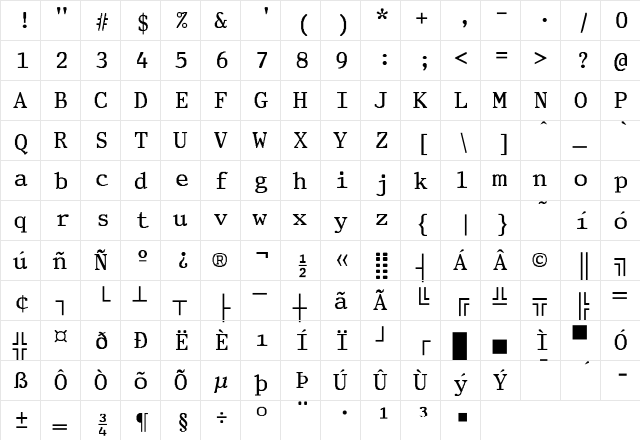
Design Context for PrestigeEliteBold-Bold Typeface
PrestigeEliteBold-Bold is a composed and adaptable typeface that performs quietly and consistently across a wide range of design contexts. The heavy weight commands attention and anchors typographic hierarchies.
Pro Tip: Use PrestigeEliteBold-Bold in both headline and body roles to test its range before committing to a single application.